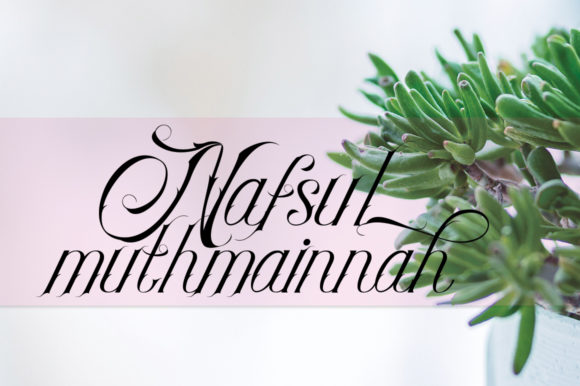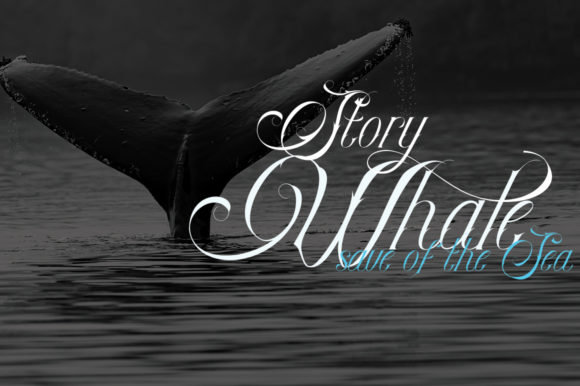
The Masquito Font
db-ku.com - Script & Handwritten -- The Masquito is an amazing script font. It has beautiful swashes and ligatures that will add an elegant touch to all your designs.